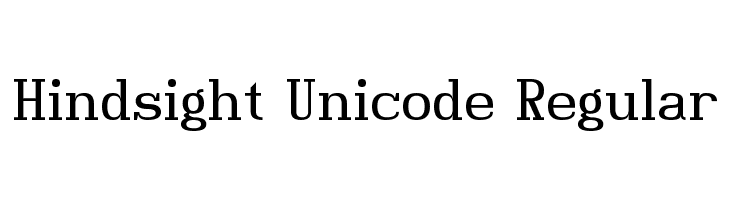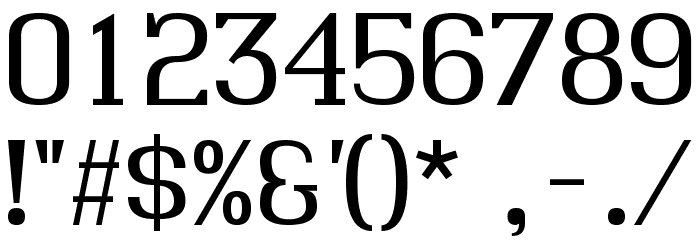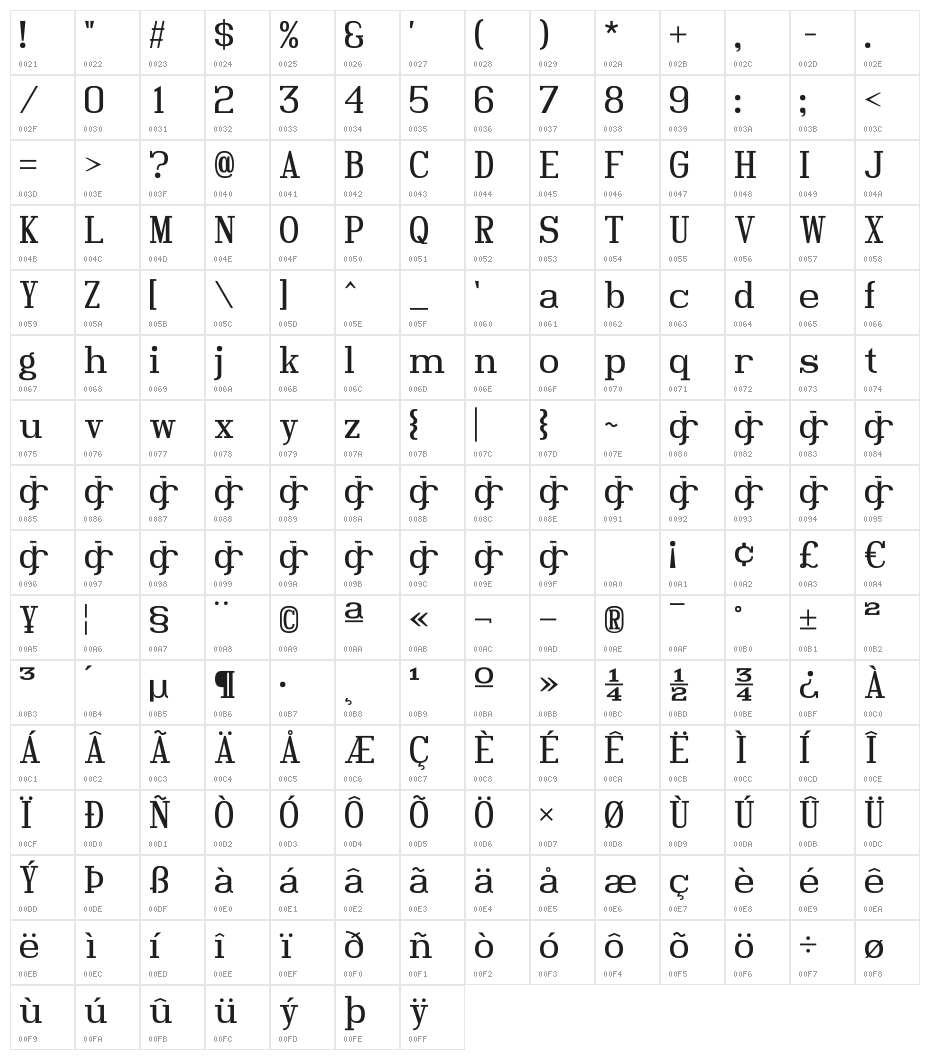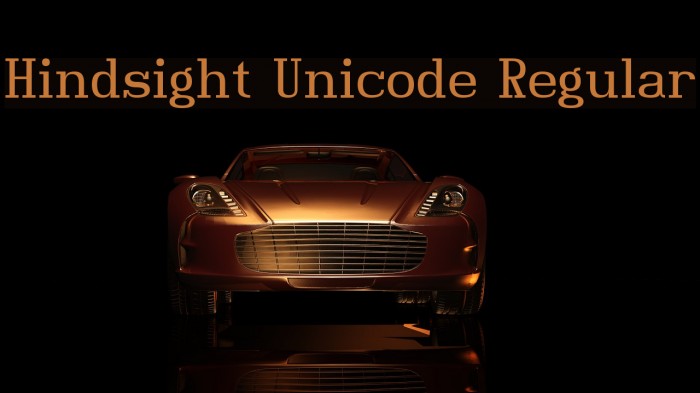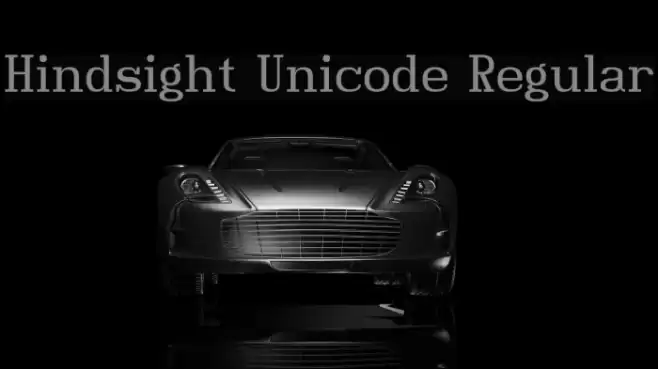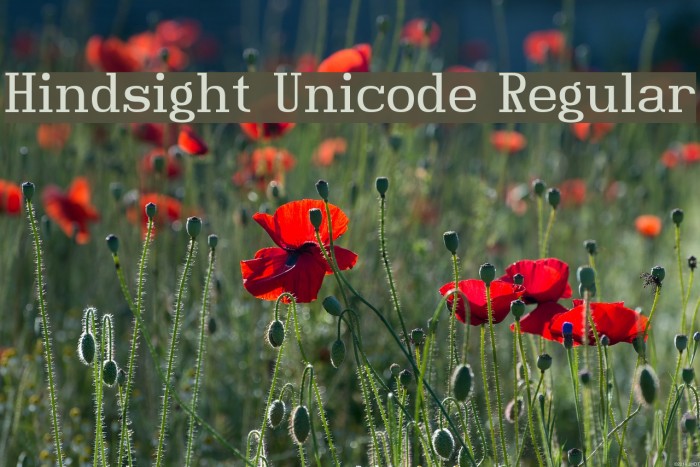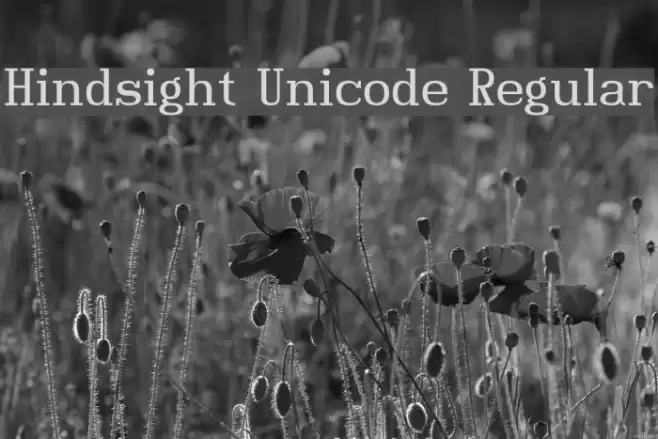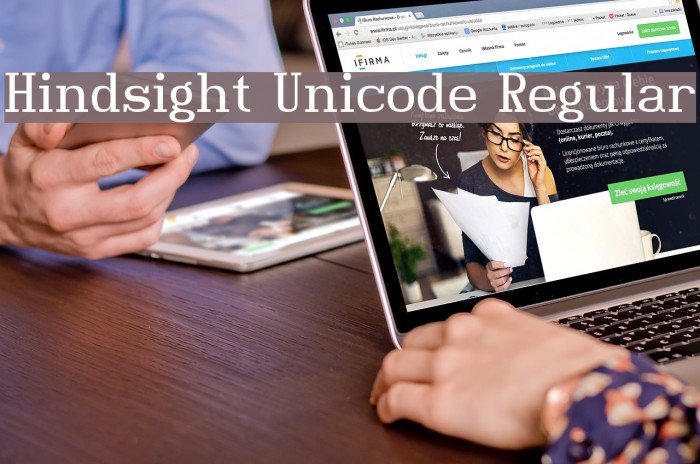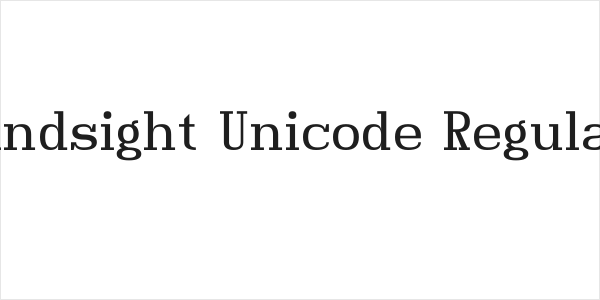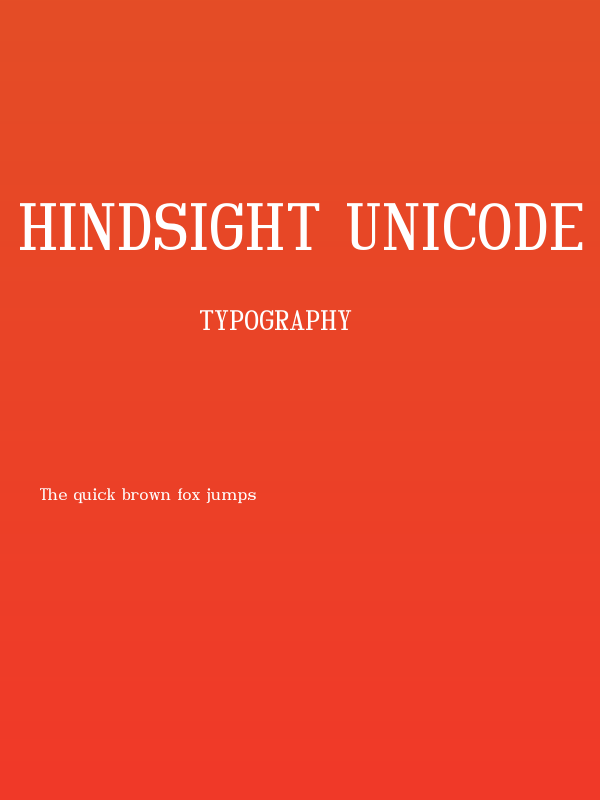
Hindsight Unicode Regular Font
Hindsight Unicode Regular Description
This font features a classic serif design with a modern twist, characterized by its clean lines and balanced proportions. The uppercase letters are bold and commanding, while the lowercase letters maintain a harmonious flow. The numerals are distinct and easily readable, making them suitable for various applications. The special characters are well-integrated, ensuring consistency across different uses. The overall appearance is both professional and approachable, making it versatile for a wide range of design projects.
| Proposed Projects | Ideal for editorial design, branding, and corporate communications. |